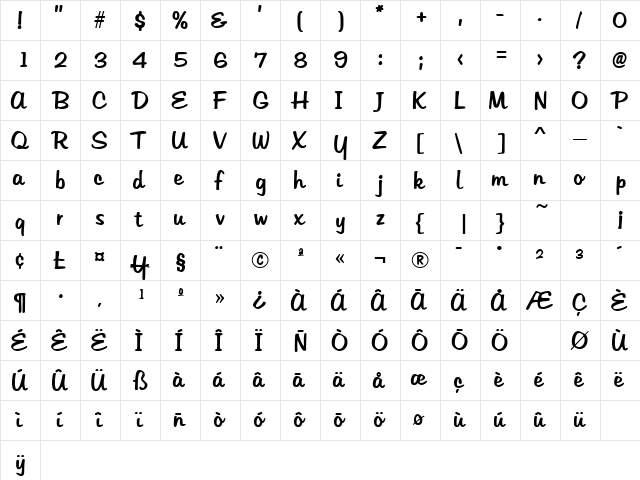
PrilliaSSK Regular
Design Context for PrilliaSSK Typeface
PrilliaSSK is a composed and adaptable typeface that performs quietly and consistently across a wide range of design contexts.